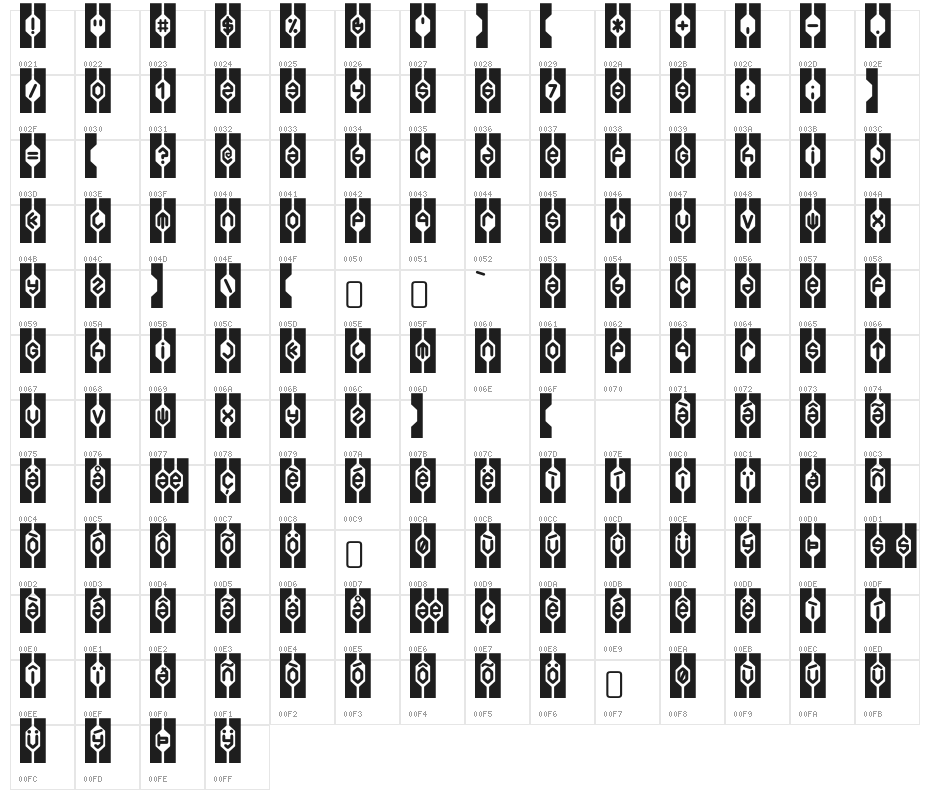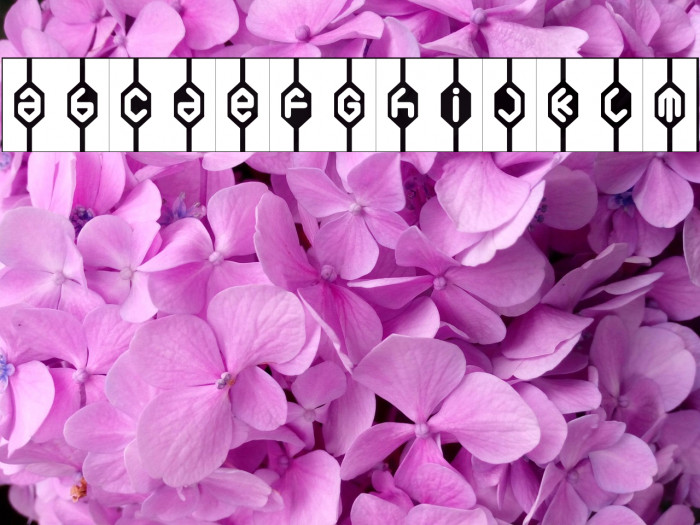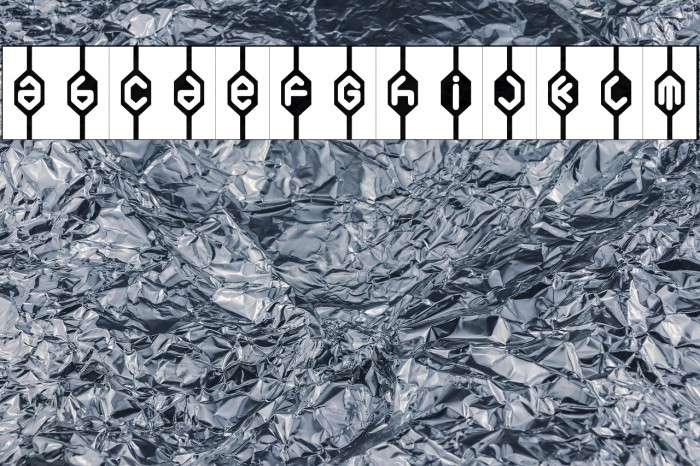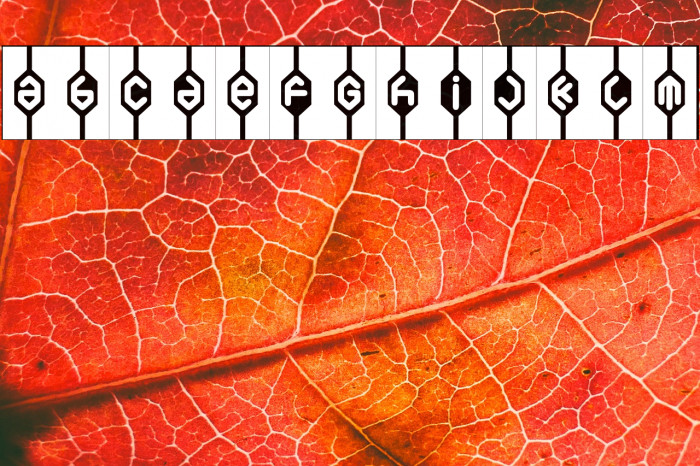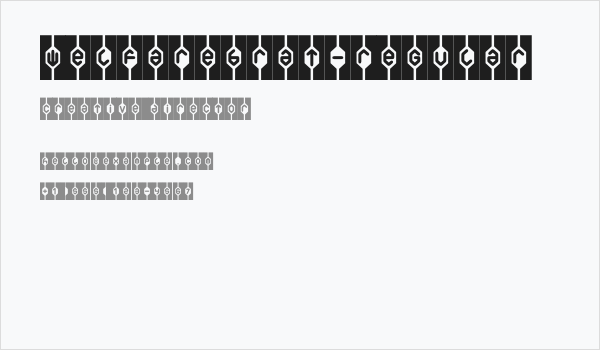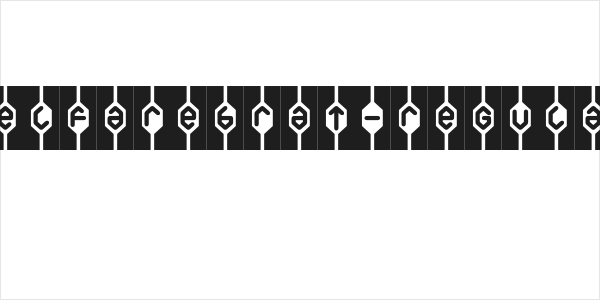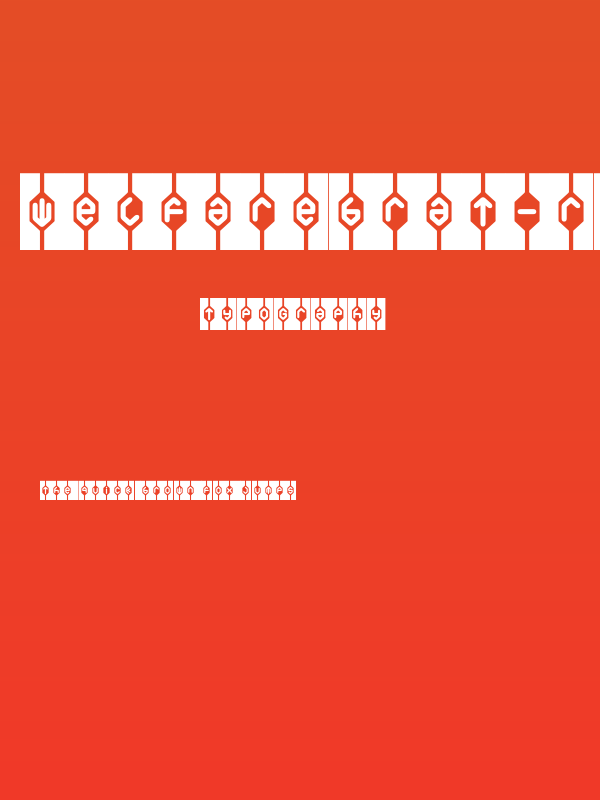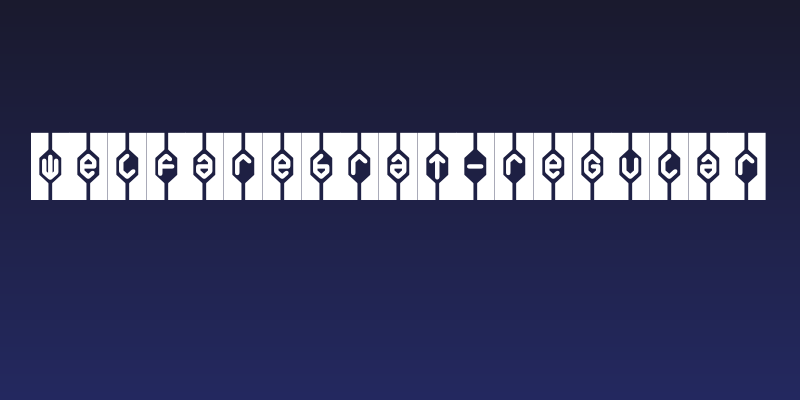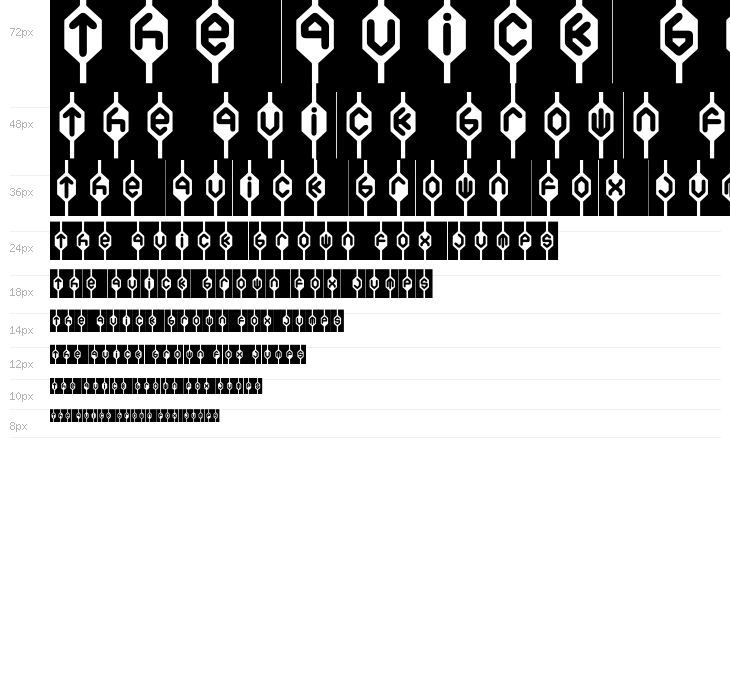
WelfareBrat-Regular Font
WelfareBrat-Regular Description
This font features a unique, futuristic design with geometric shapes and sharp angles. Each character is enclosed within a hexagonal frame, giving it a distinct, modern appearance. The letters are bold and eye-catching, with a consistent width and height across all characters. The numbers and special characters follow the same design principles, ensuring uniformity throughout the font. This style is particularly suitable for projects that require a modern, tech-inspired aesthetic.